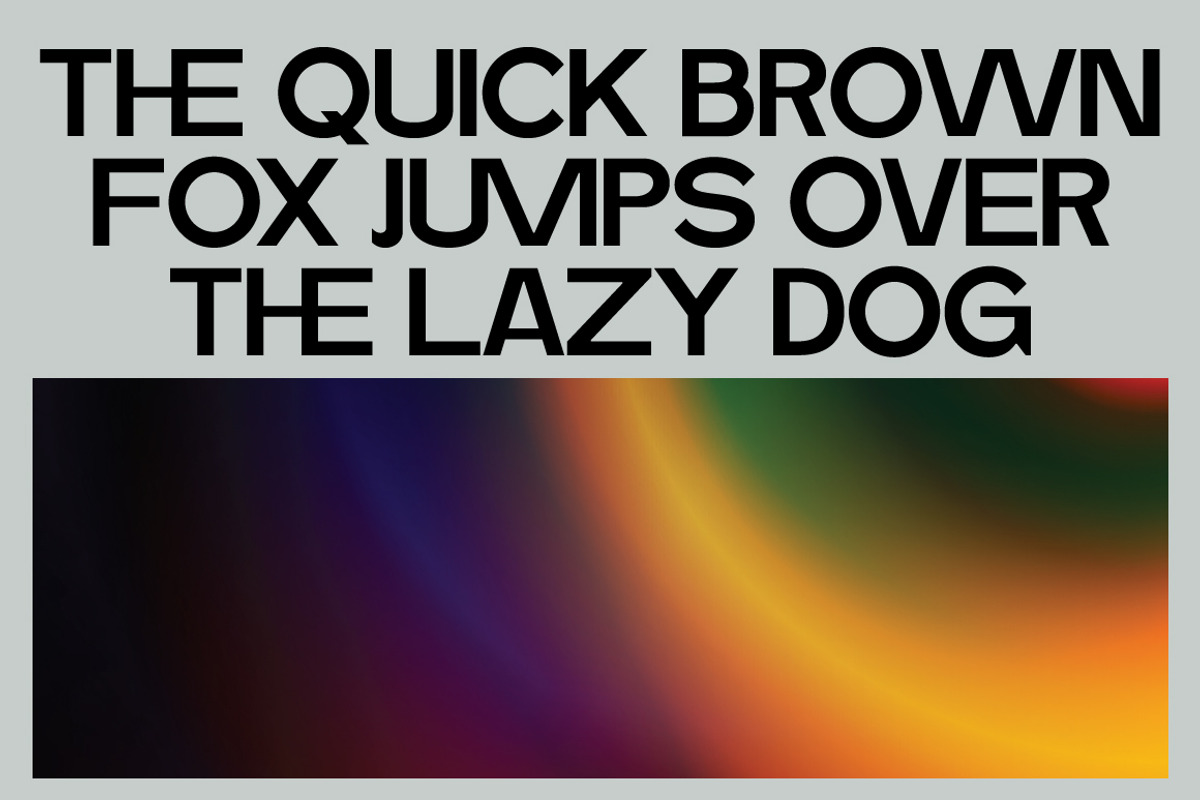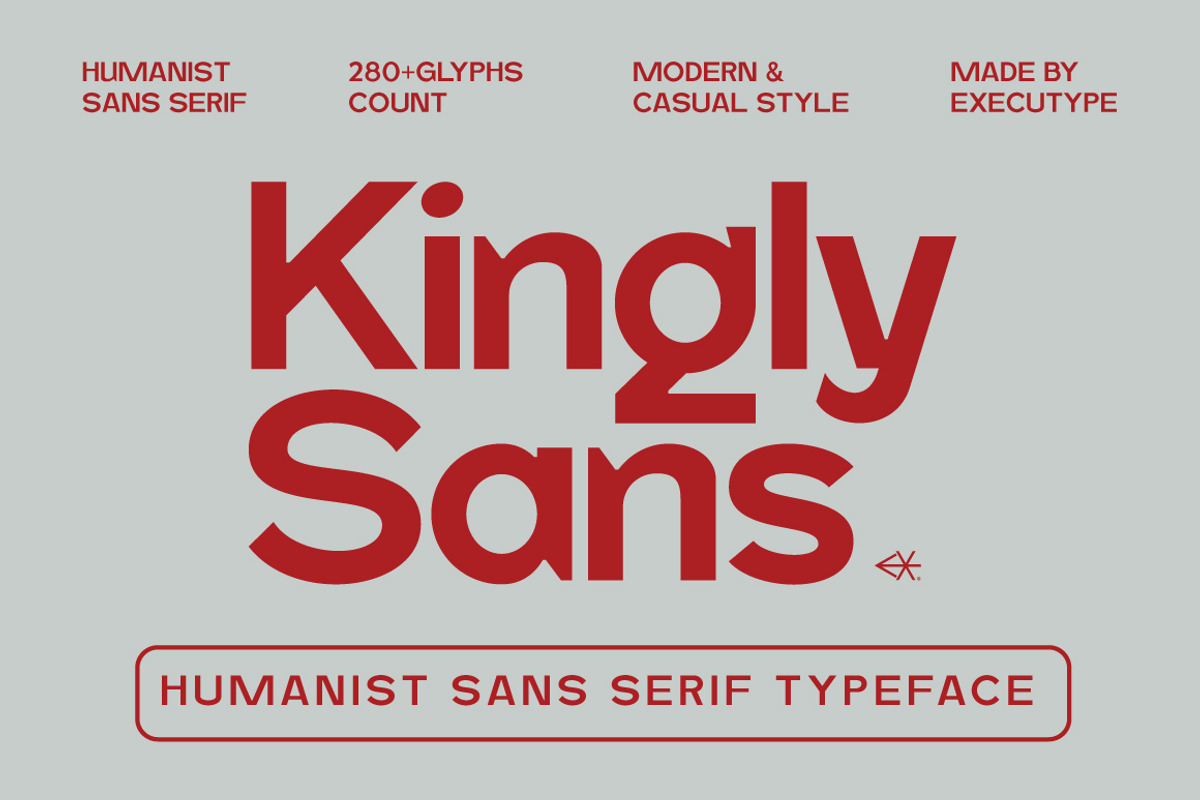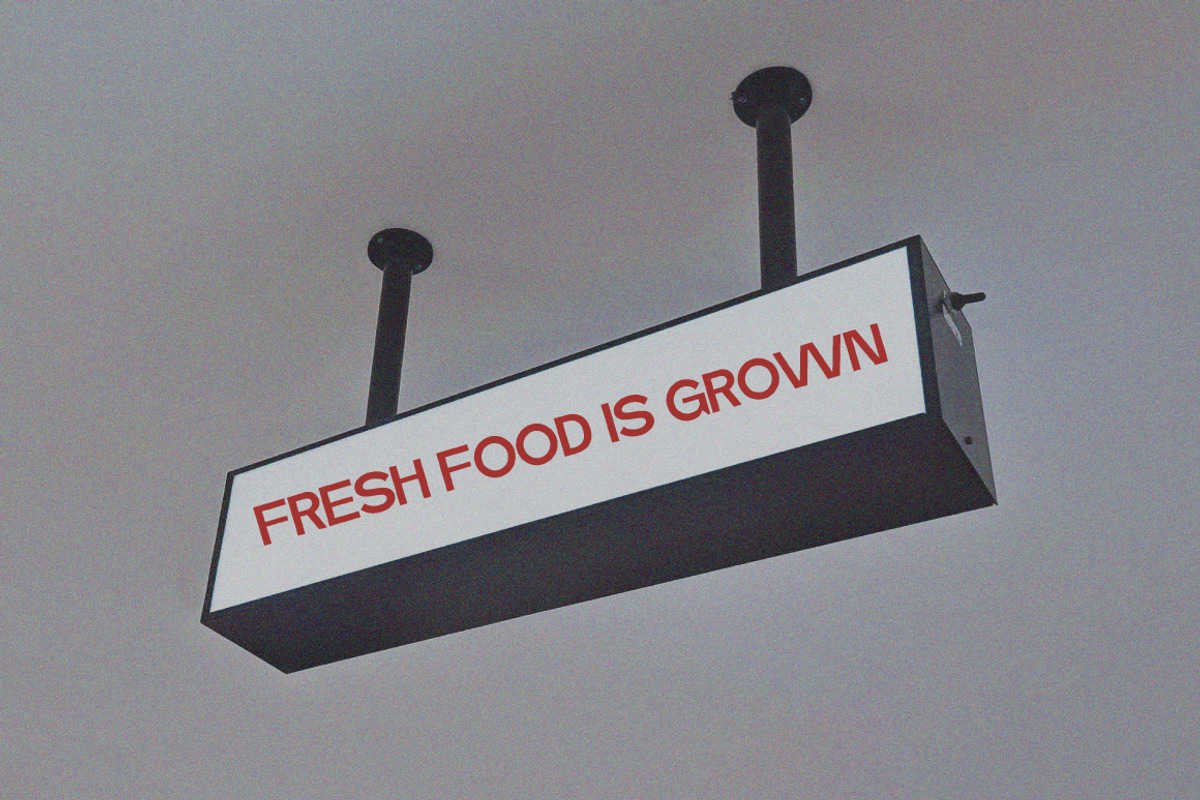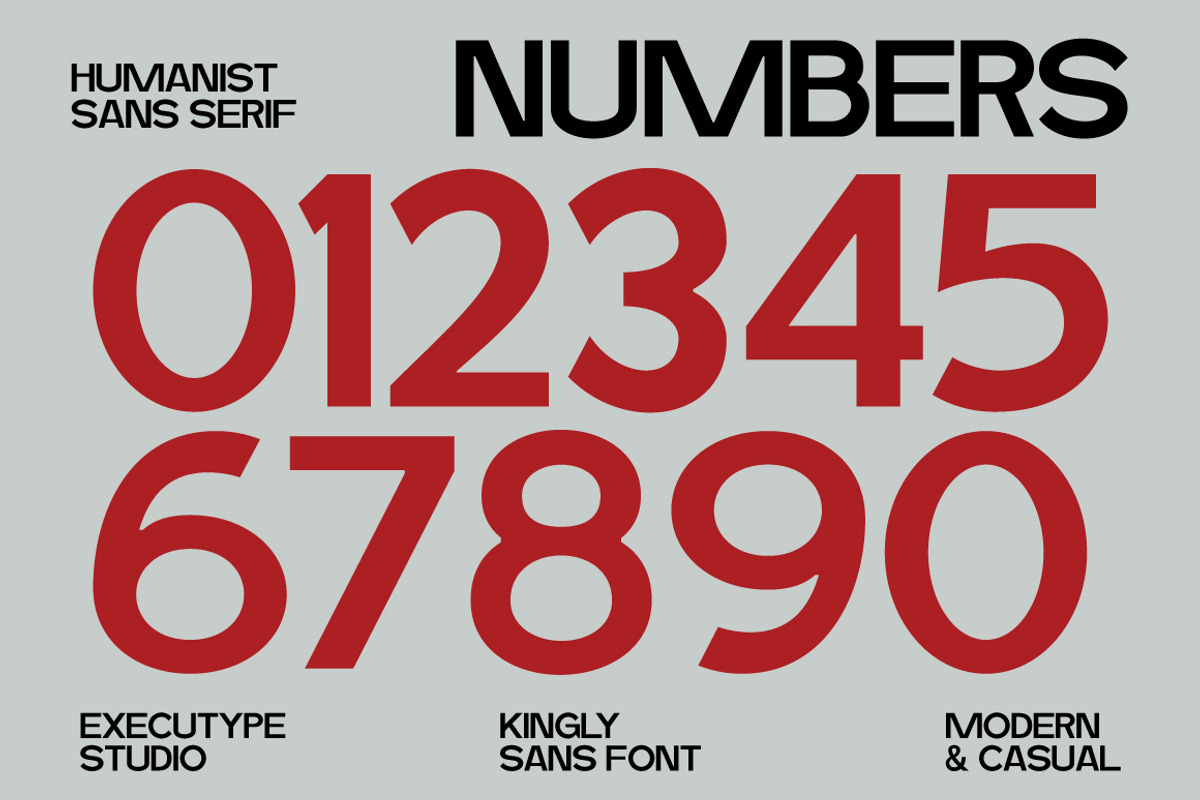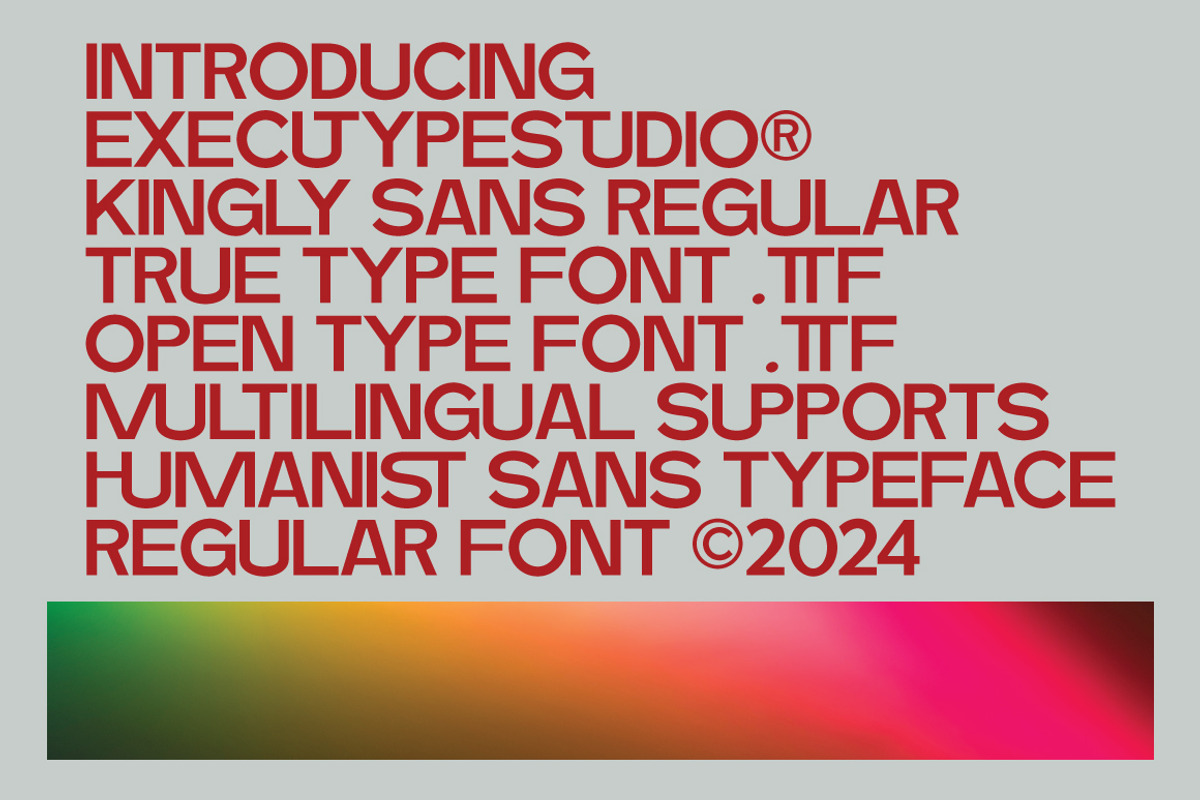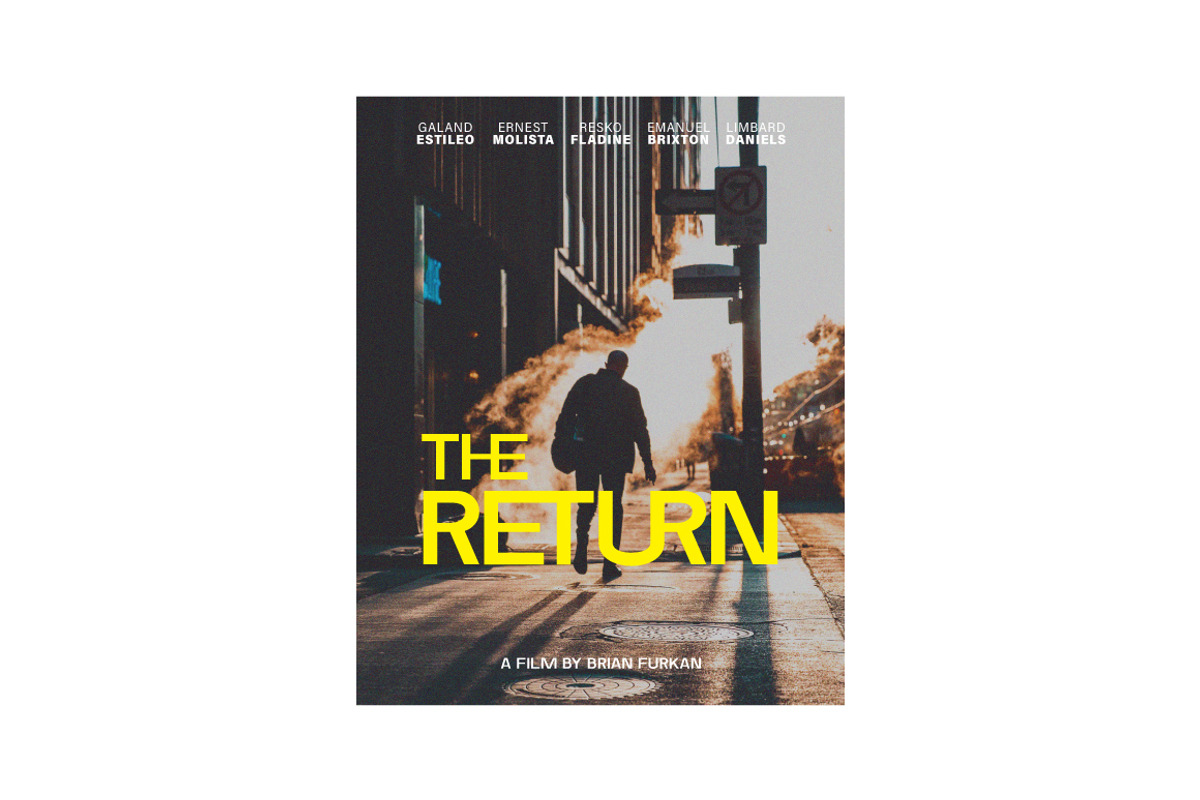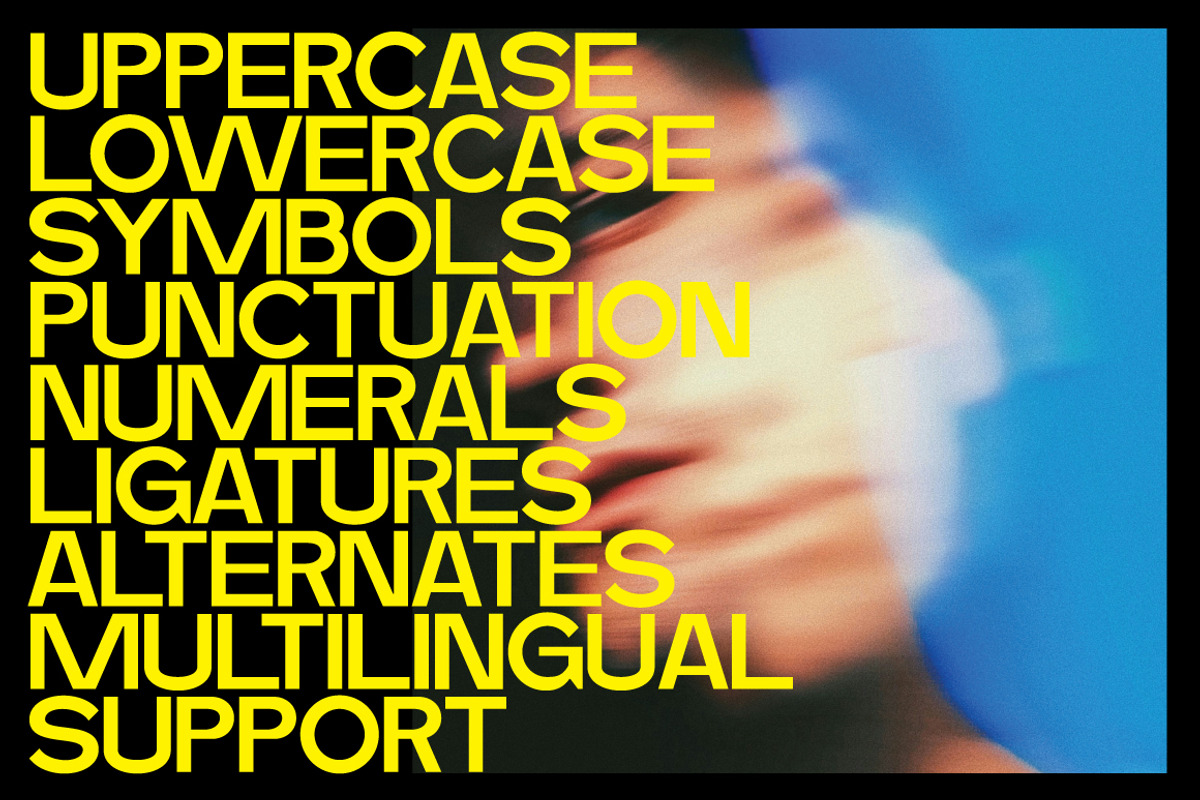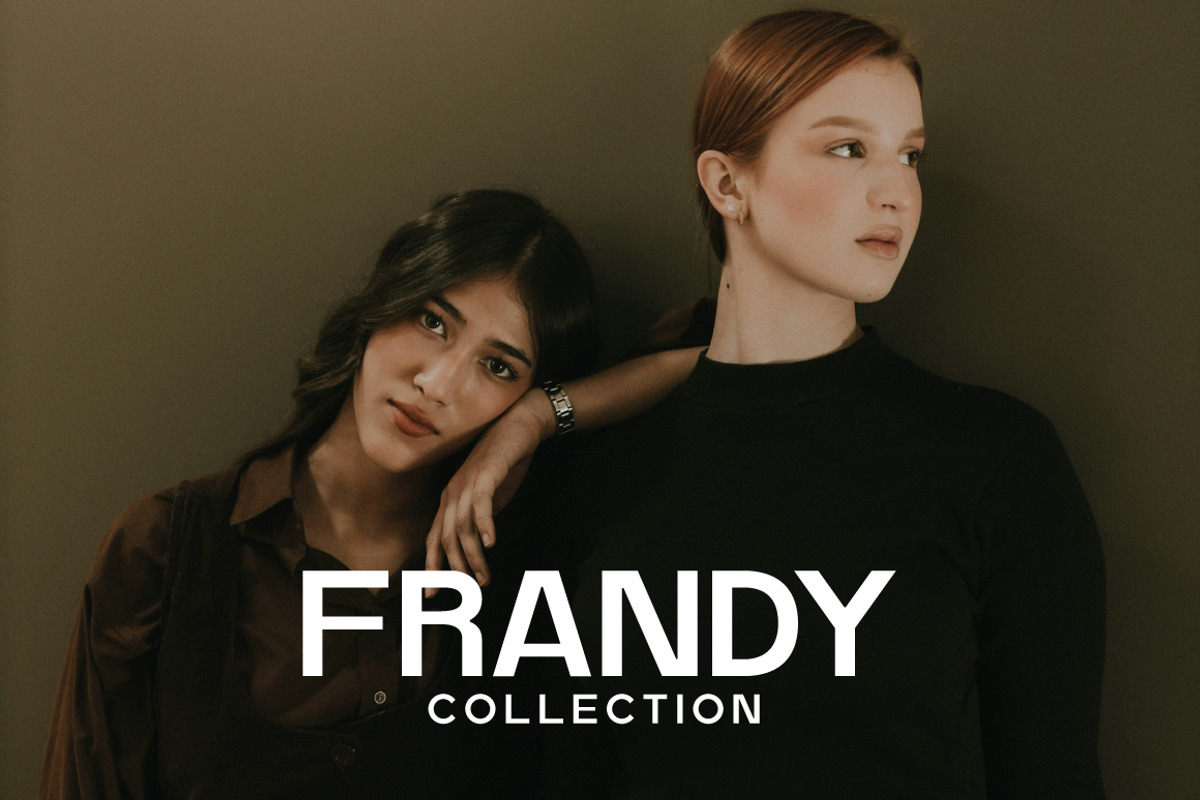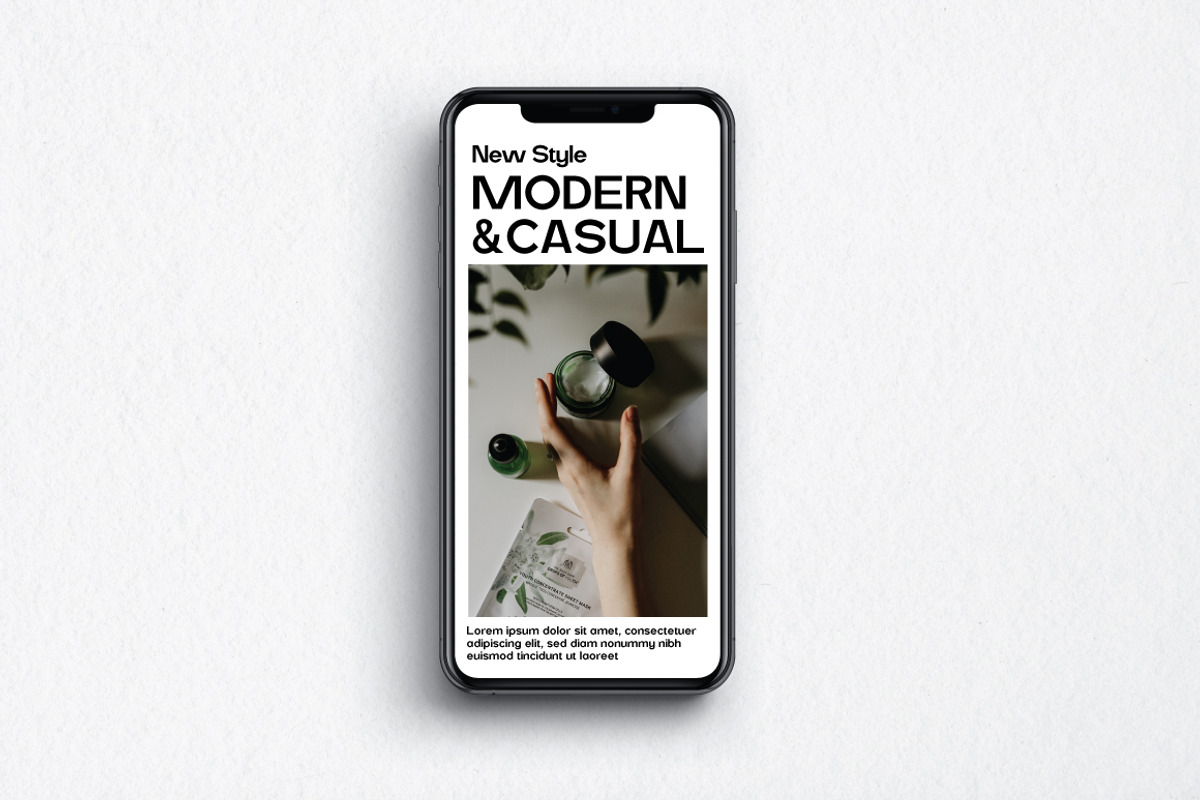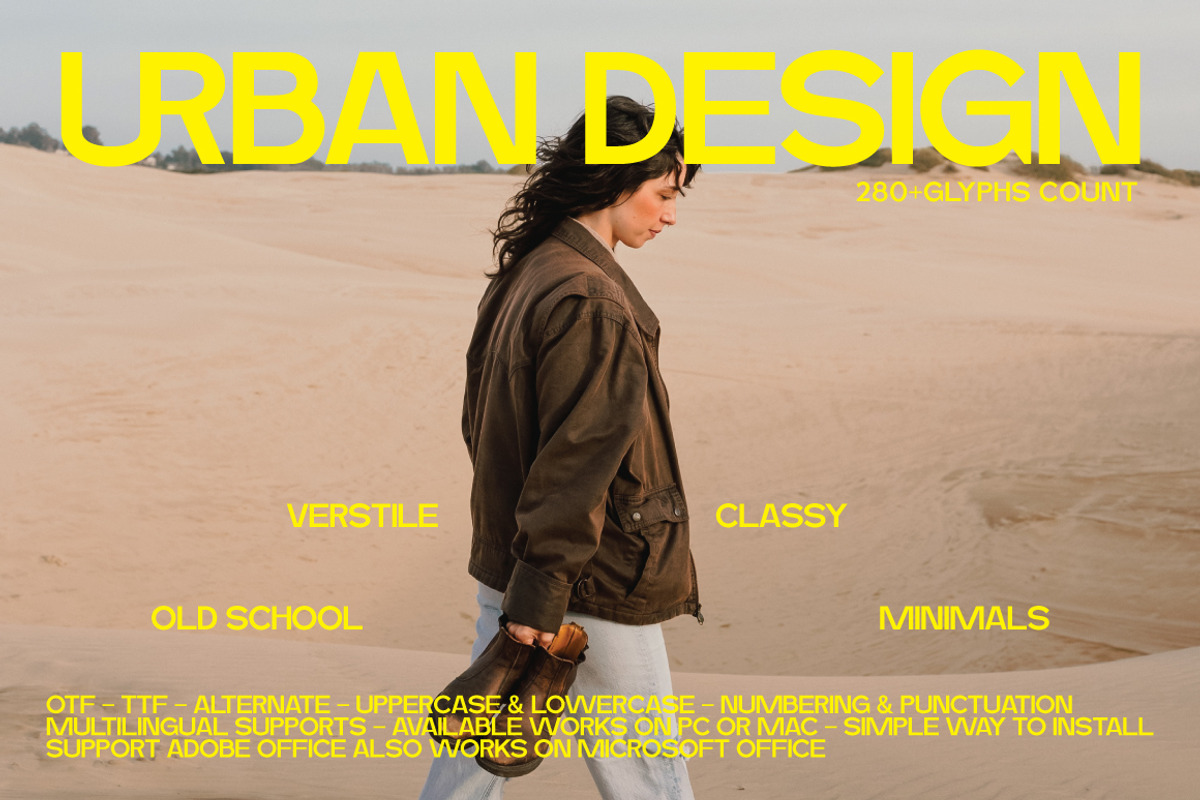
Kingly Sans
A new Kingly Sans that we created special for Headline, Title and more stand out typography needs. It's so perfect to add your style and headline overview. And specially for Headline font, we crafted for unique style and modern feels so enjoy to create any project that will show your main idea out.
Kingly Sans - A Humanist Display Typeface
Kingly Sans the perfect bold and narrow font for headlines and captivating displays. Ideal for designers seeking a modern and impactful look with retro and vintage vibes. Transform your projects with this regular and slant, condensed typeface that demands attention.